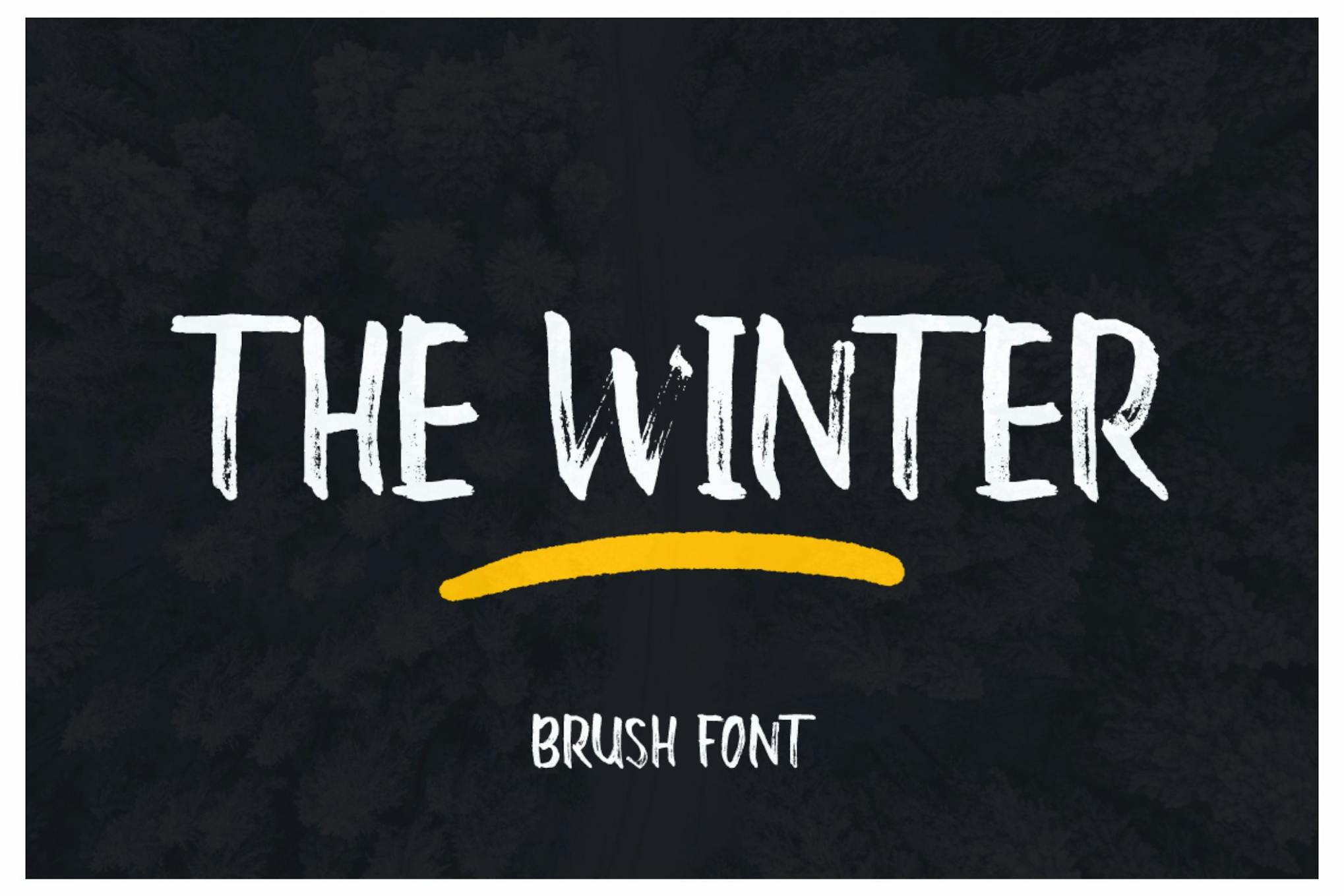
The Winter Brush Font
The Winter Brush Font Free Download is a beautiful and artistic typeface that captures the cozy and magical spirit of the winter season. For commercial use, you must purchase this font, but you can download it for free for testing purposes. This versatile font is perfect for a wide range of creative projects, including winter-themed branding, holiday cards, Christmas posters, cozy merchandise, and seasonal social media graphics. What makes this font so exciting is its authentic, hand-painted texture and dynamic, artistic strokes, which instantly gives your designs a warm, heartfelt, and unforgettable character. The The Winter Brush font family includes a range of styles and features, such as a Regular version, a more stylized Bold version, and a collection of dynamic swashes and alternates, providing a complete and flexible design solution.
This isn’t just a font; it’s a feeling. The design of The Winter Brush Font is inspired by a blend of authentic brush lettering and the enchanting, crisp aesthetic of winter. Its distinctive, free-flowing letterforms and bold presence ensure that your headlines and titles will be both memorable and highly impactful. Whether you’re a designer crafting a brand identity for a seasonal product, a creative working on a poster for a winter event, or a business looking for a font that conveys a sense of warmth and cheer, this typeface provides the perfect foundation. The hand-painted aesthetic adds a layer of authentic grit that makes your work feel bespoke, real, and full of character.
The versatility of The Winter Brush family is one of its greatest strengths. You can use the regular weight for a clean, artistic feel, or the bold version for a more intense, expressive look. The included swashes and alternates allow you to customize your text and create unique typographic compositions that feel bespoke and original. This flexibility makes it an invaluable asset for designers who need to create custom content that feels both contemporary and personal. It's a font that works hard, delivering a look that is both stylish and full of character, ensuring your designs always make a memorable impression.